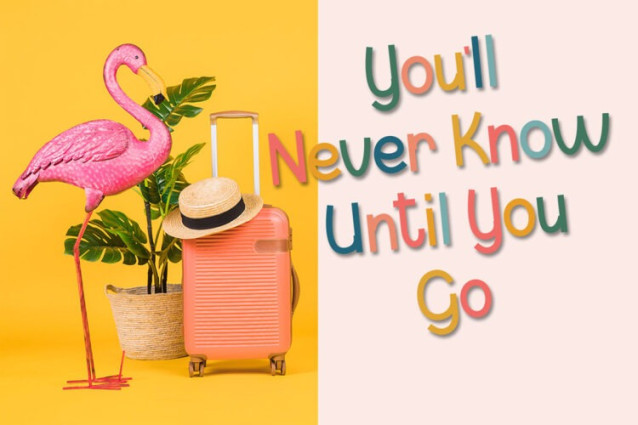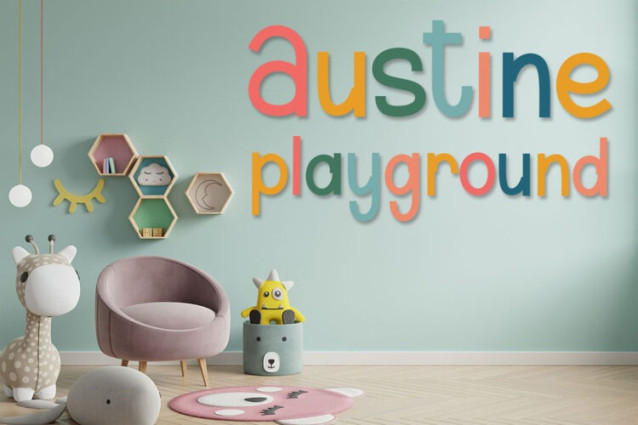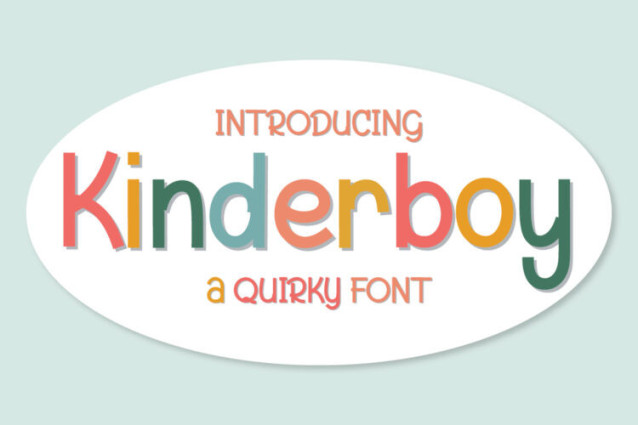
Kinderboy Playful Font
Kinderboy Playful Font | Quirky Font. Very good for kids theme, Crafted, logotype, label, badge, headline, packaging and any more.